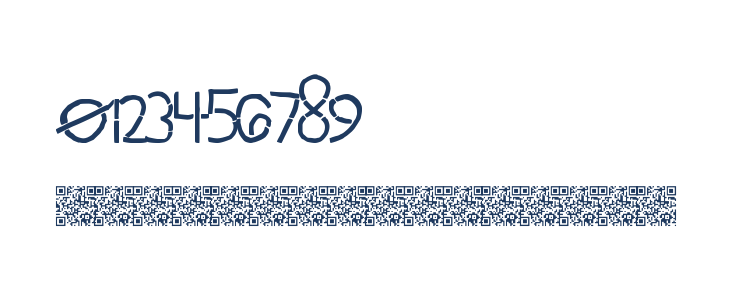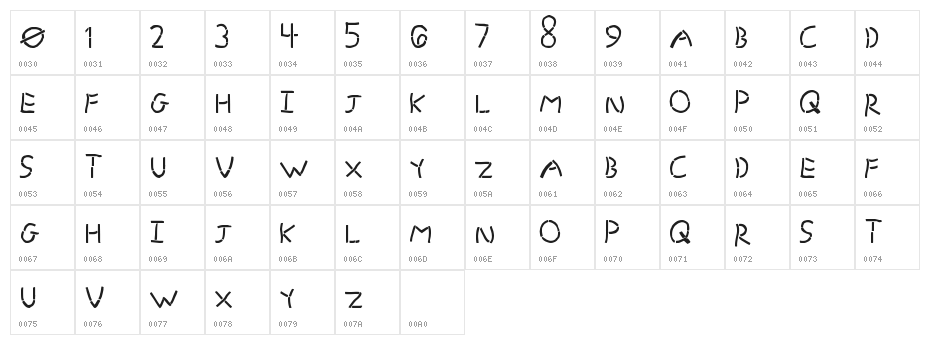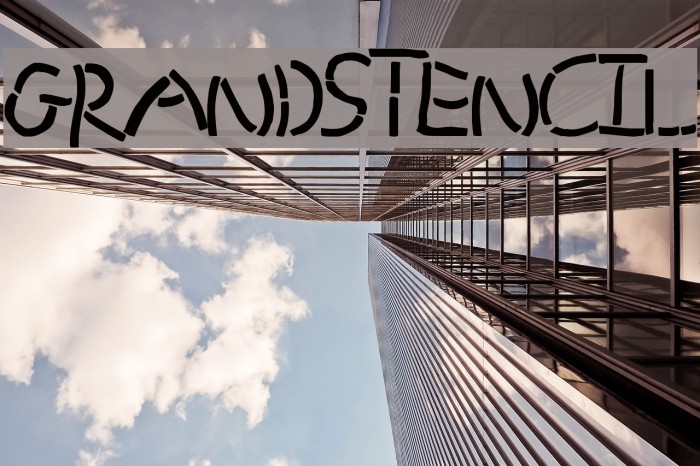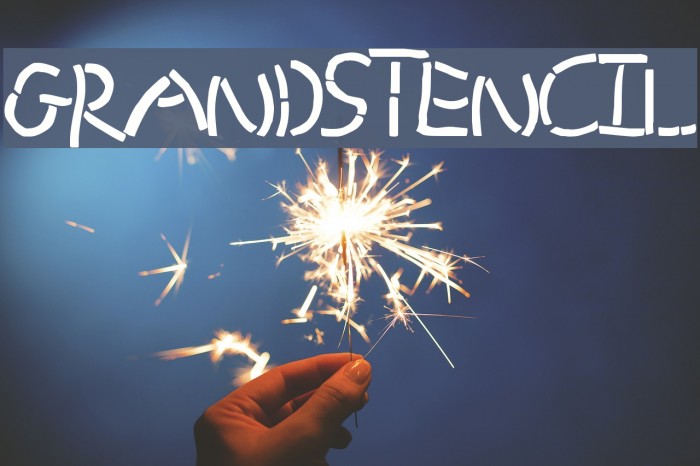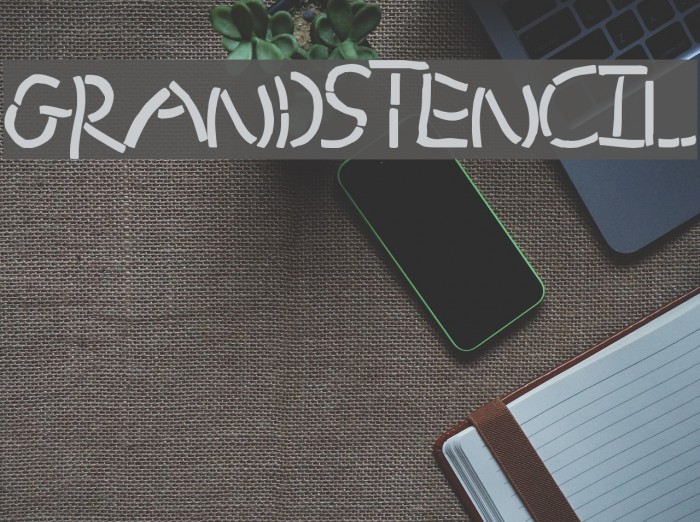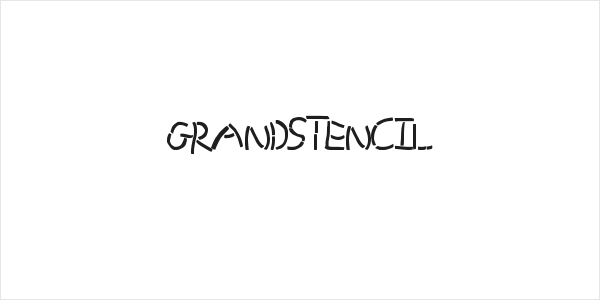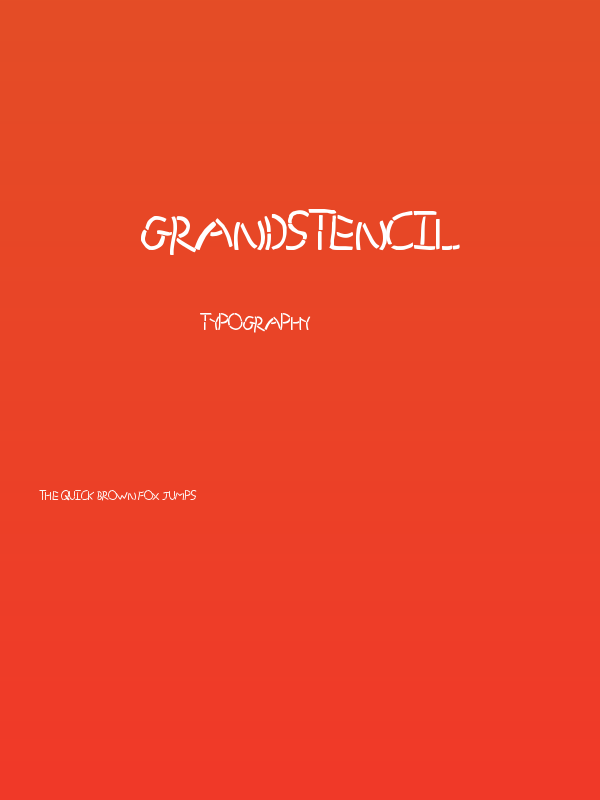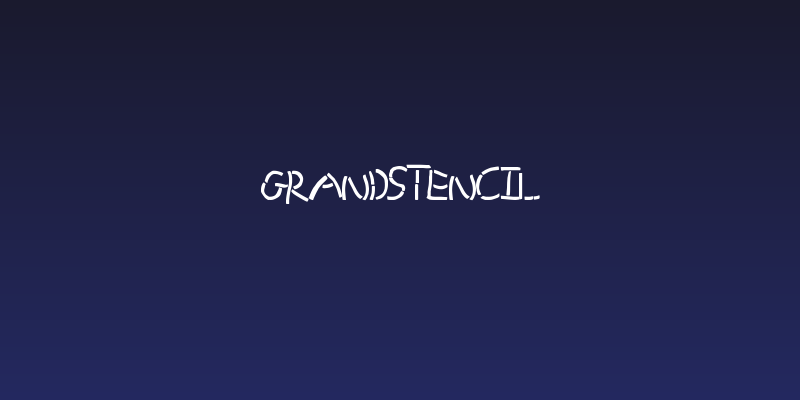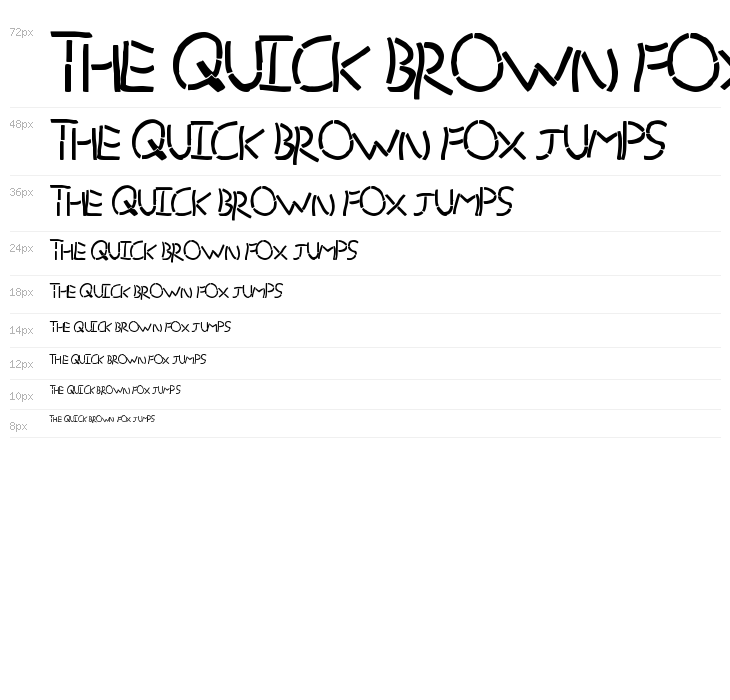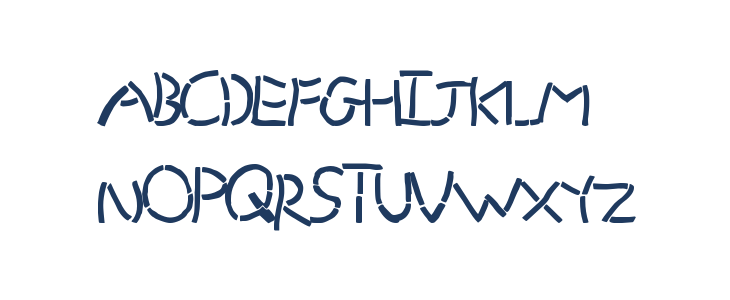
GrandStencil Font
GrandStencil Description
This font features a bold, stencil-like design with a modern twist. The characters are constructed with distinct breaks, giving it a unique and industrial feel. The uppercase and lowercase letters maintain a consistent style, with angular and geometric shapes that create a sense of movement and energy. The numbers are equally bold, with a slightly rounded appearance that complements the overall design. The special characters are crafted to match the font's aesthetic, making it versatile for various uses. This font's strong visual impact makes it ideal for attention-grabbing headlines and creative projects.